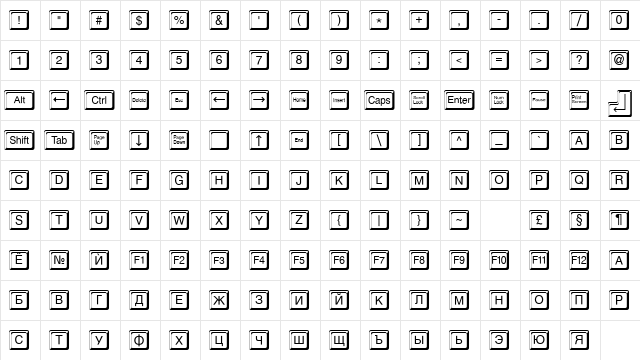
SP_Keystroke Regular
Design Context for SP_Keystroke Typeface
SP_Keystroke offers clean, dependable letterforms without strong stylistic allegiance, making it a practical choice for designers who need flexibility.
Pro Tip: Pair SP_Keystroke with a font of contrasting weight or personality to build a more expressive typographic hierarchy.